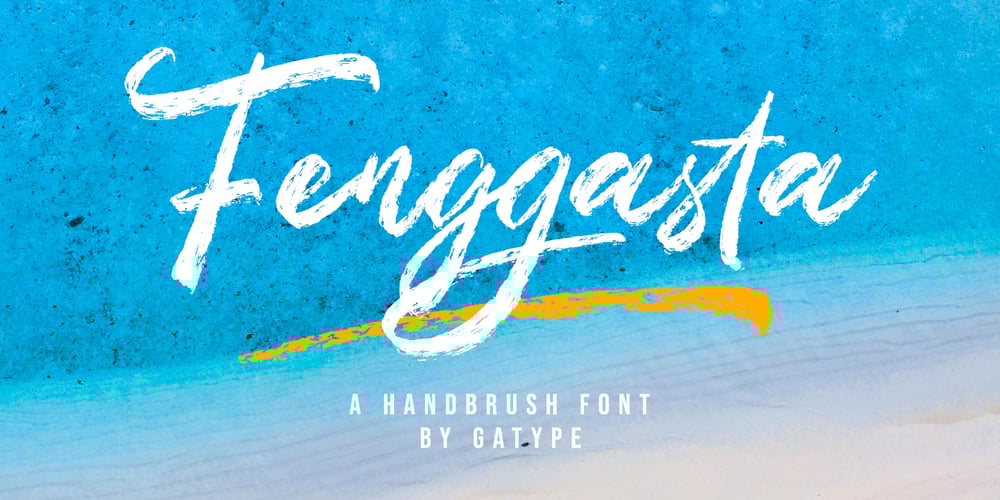
Fenggasta
Fenggasta font
Fenggasta Font Family was designed by khaidir and published by Gatype. Fenggasta contains 2 styles and family package options. Fenggasta is a font that is scratched with a brush pen, to get a natural texture, so this font will display the characteristics of the hand. This font is very suitable for a variety of places such as clothing, poster, tittle books, stationery designs, quotes, branding, logos, invitations, greeting cards, t-shirts, packaging designs and more.